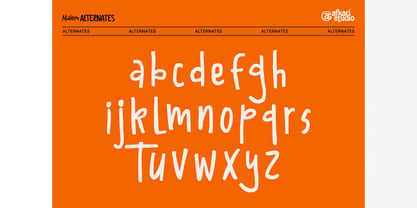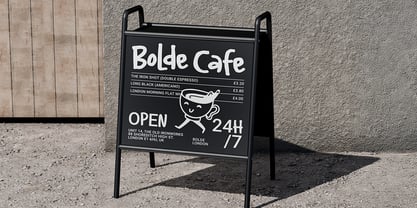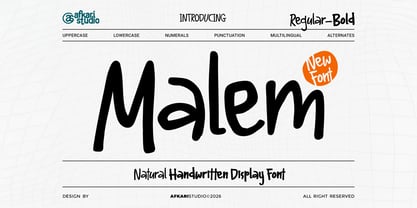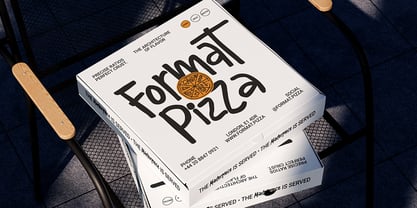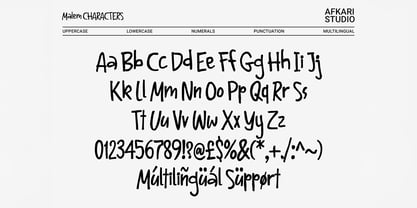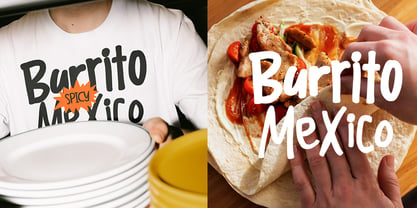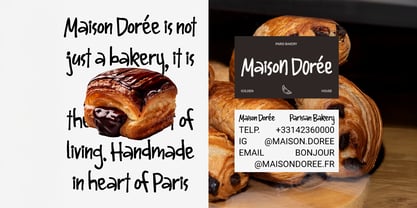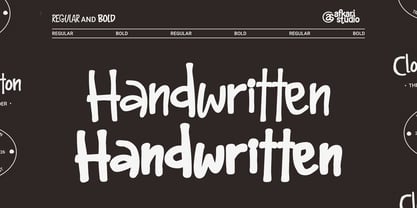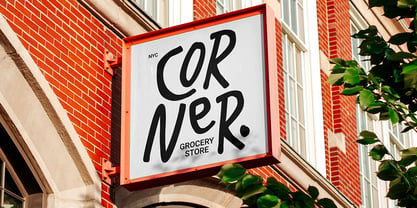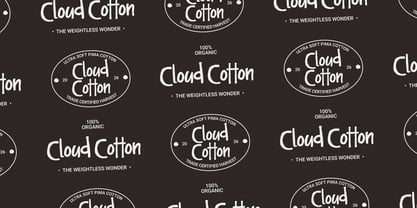
Malem
by Afkari Studio
The Malem Font Family was designed by Musthafa Kamal Emje and published by Afkari Studio. Malem contains 2 styles and family package options. More about this family
Malem is a natural handwritten display font designed to capture the warmth and authenticity of real handwriting. With organic strokes and a relaxed rhythm, Malem feels personal, friendly, and expressive—perfect for designs that need a human touch. This font comes with Regular and Bold styles, giving you flexibility to create contrast and hierarchy in your layouts. Use Regular for a soft, casual feel and Bold for stronger emphasis in headlines, titles, and key messages. Despite its natural look, Malem remains clear and readable across both digital and print projects. Malem is ideal for creatives who want typography that feels handcrafted, warm, and approachable. Highlighted Features: - Uppercase, Lowercase, Number, and Punctuation - Special alternates and ligatures - Works on PC & Mac - Simple installations - Accessible in Adobe Illustrator, Adobe Photoshop, Adobe InDesign, and even work on Microsoft Word - Fully accessible without additional design software. - Mültîlíñgúãl Sùppört for; ä ö ü Ä Ö Ü ß ¿ ¡ Malem is ideal for designers who want a handwritten font that feels natural, approachable, and full of character.
Afkari Studio is An foundry based in Aceh, We Discover Unique Typefaces Made with Love for Unlimited projects Just For You. Afkari Studio has been trying to create unique, attractive fonts that can be used for all kinds of needs that prioritize aesthetics and look different from others. We always create unique fonts because we believe that a unique font will have its own taste for its users.